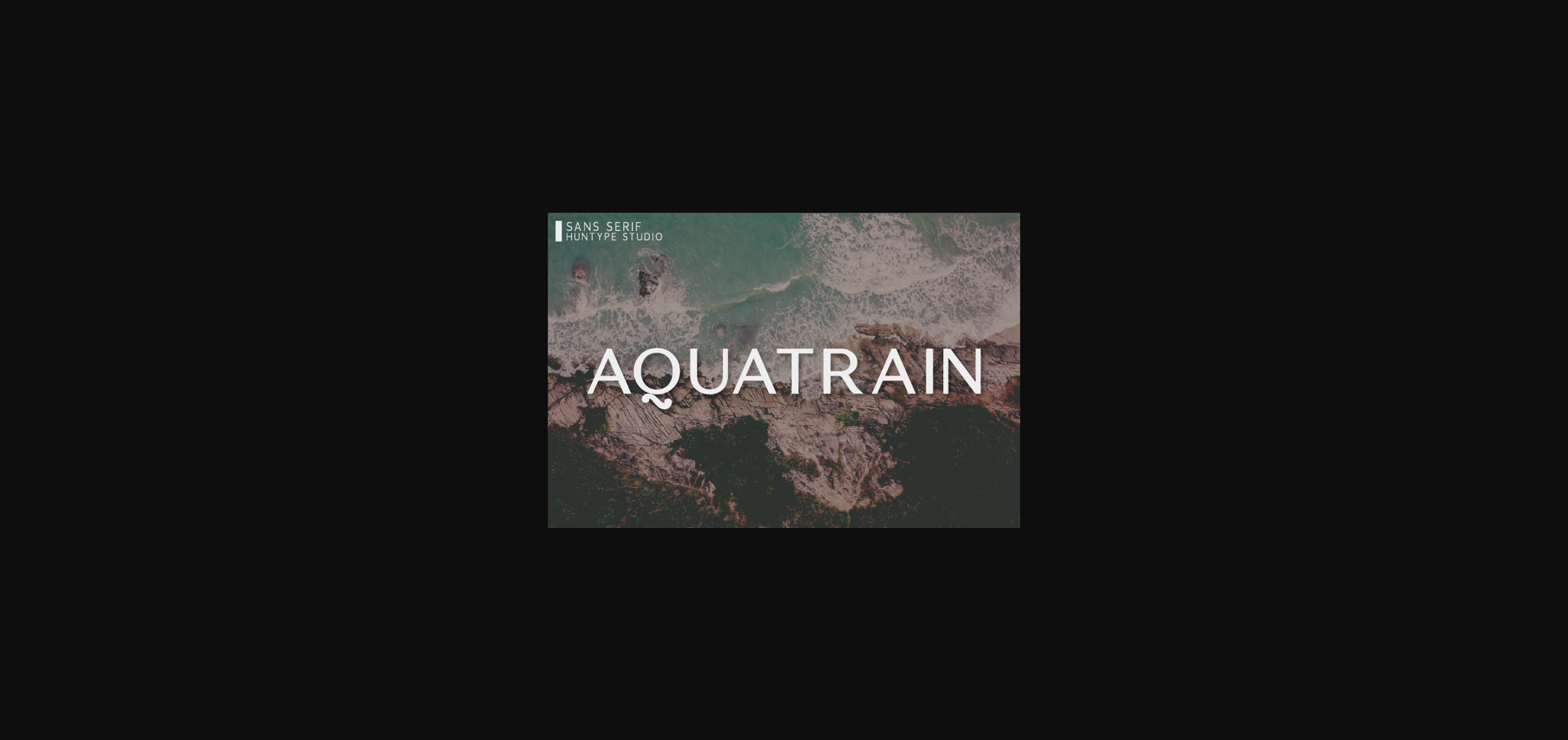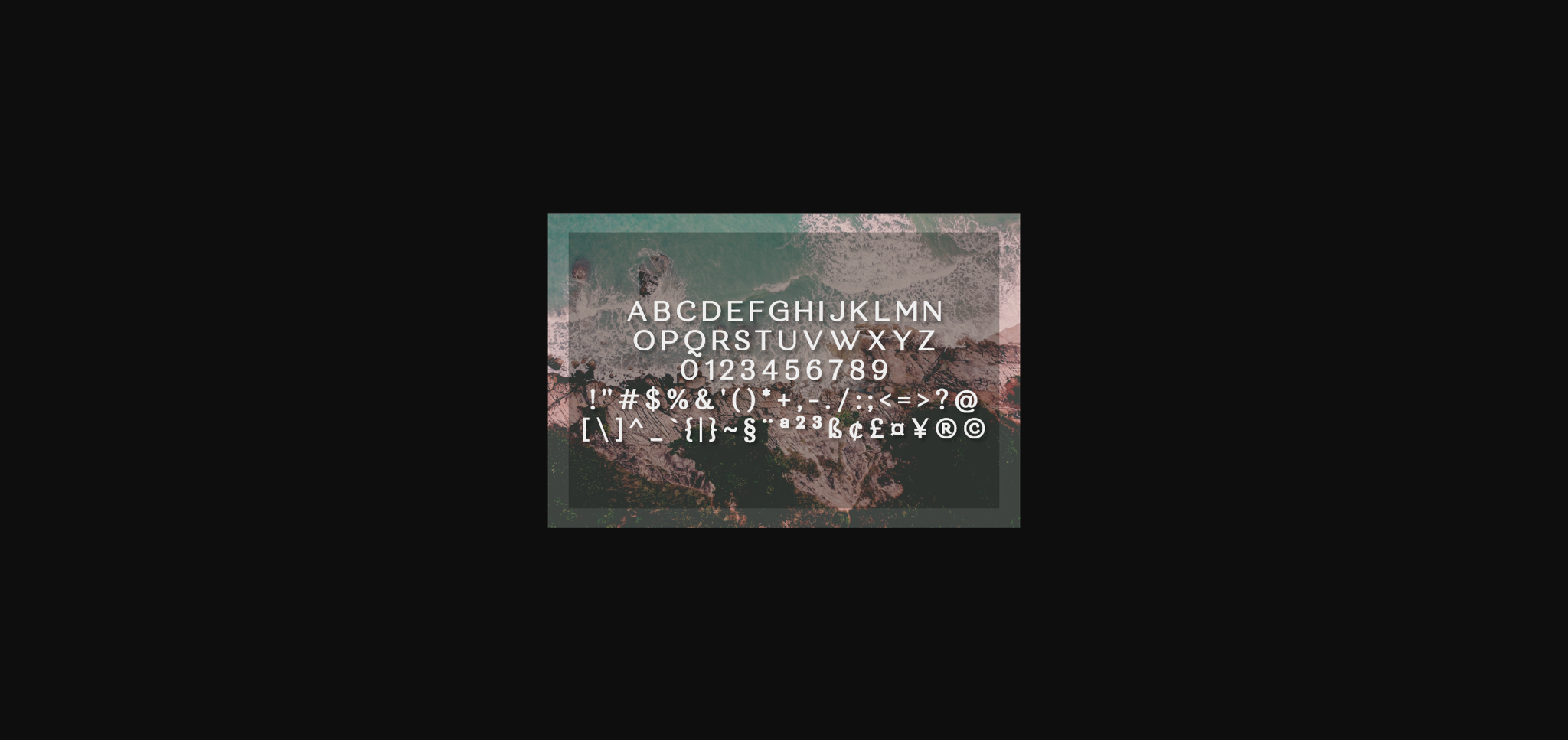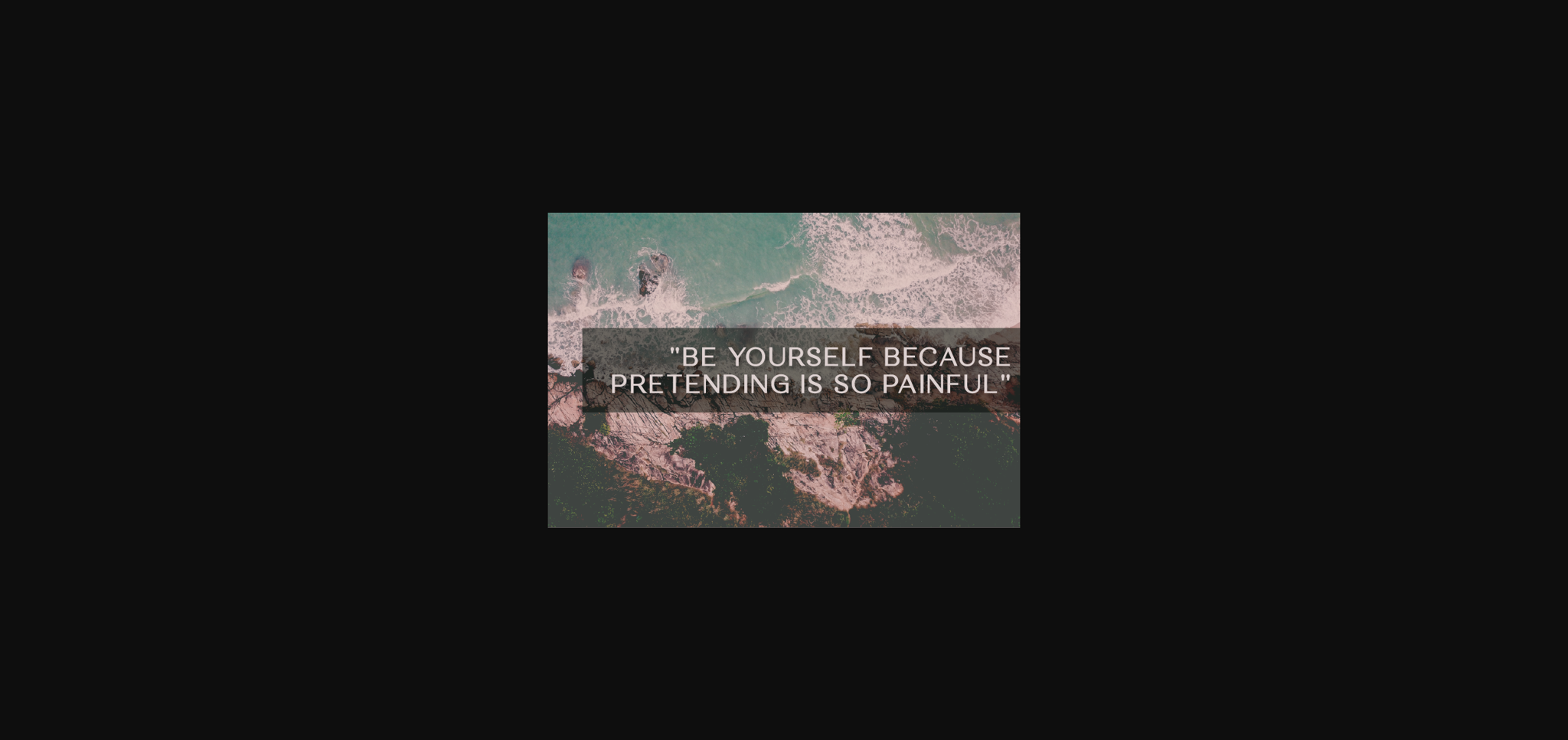
HomeSans Serif FontsAquatrain Font Sans Serif Fonts Aquatrain Font FacebookXPinterestWhatsApp 1 of 5 ... Aquatrain Font Poster 2... Aquatrain Font Poster 3... Aquatrain Font Poster 4... Aquatrain Font Poster 5... About Aquatrain Font Aquatrain is a minimal and neat sans serif font. It can easily be matched to an incredibly large set of projects, so add it to your creative ideas and notice how it makes them stand out! DOWNLOAD NOW People also explored Arenta Font Leitterina Font Standby Font New Christmas Font Colesberg Font Little Hearts Font Superego Valeria Font Staywork Font 574 0 TagsAquatrain Font Previous articleAwatara FontNext articleKulthema Font LEAVE A REPLY Cancel reply Comment: Please enter your comment! Name:* Please enter your name here Email:* You have entered an incorrect email address! Please enter your email address here Website: Save my name, email, and website in this browser for the next time I comment. Personal Use Free England Personal Use Free Read more about this font Sushi Stroke Personal Use Free Read more about this font Little Things Duo Personal Use Free Read more about this font Hunting Font Personal Use Free Read more about this font BLOG Fonts That Capture the Spirit of New York City New York City is more than just a place—it’s an experience, a rhythm, a visual language... Free Fonts Risk: Why Free Fonts Can Be Dangerous for Designers Modern Sans-Serif Fonts That Brands Love in 2025 Exploring Font Trends